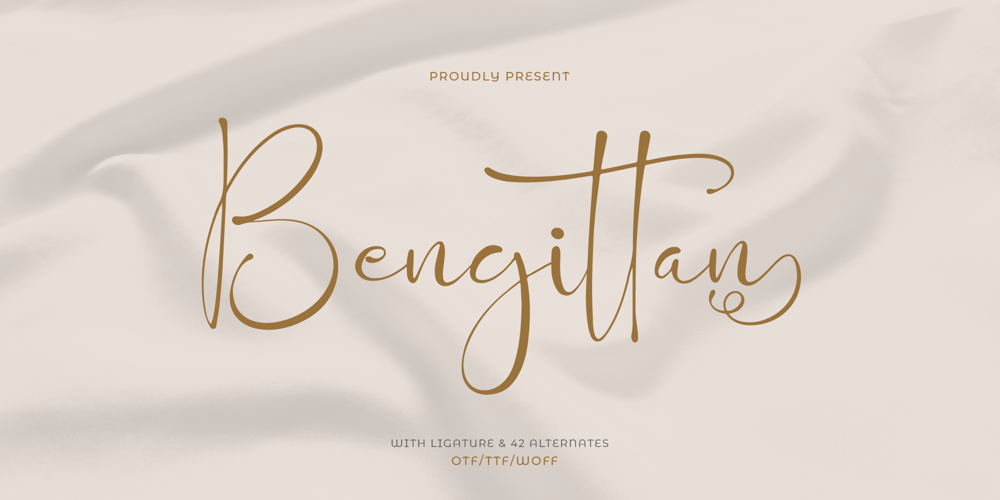
Bengittan
Bengittan font
Bengittan Font Family was designed by Dede Nugraha and published by Denustudio. Bengittan contains 2 styles and family package options. Bengittan Handwritten Script Font, from Denustudios, suitable for any projects such as: logos, branding projects, homeware designs, product packaging, mugs, quotes, posters, shopping bags, t-shirts, book covers, name card, invitation cards, greeting cards, label, photography, watermark, special events, and all your other lovely projects that need a beautiful script taste. ===============================================================What’s Included : Regular and Italic Font Web Font Standard glyphs Alternate and Ligature Works on PC & Mac Simple installations Accessible in the Adobe Illustrator, Adobe Photoshop, Adobe InDesign, even work on Microsoft Word and Other Software. PUA Encoded Characters – Fully accessible without additional design software. Fonts include multilingual support Wish you enjoy our font. 🙂